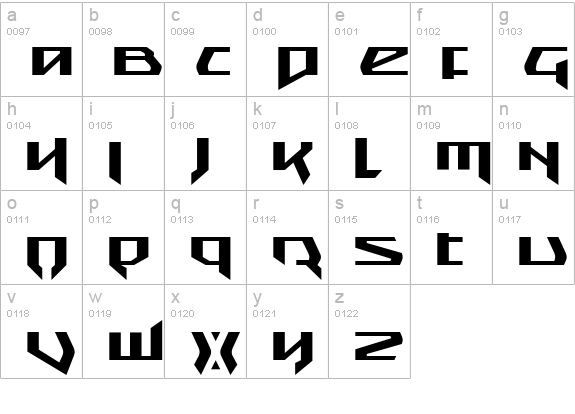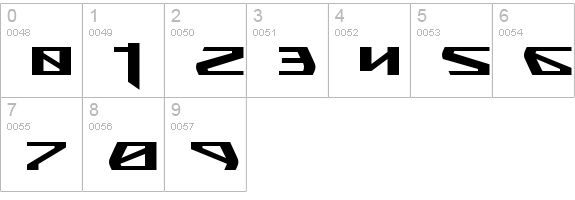
Snubfighter Expanded is a distinctive, extended-width variant in the Snubfighter typeface family \xE2\x80\x94 well suited to design and typography projects.
Snubfighter Expanded Font is a sleek and modern typeface that exudes confidence and sophistication. Its sharp angles and precise lines give your designs a futuristic edge, making it perfect for projects that require a bold and striking look. This versatile font is ideal for headlines, posters, branding, and more. What's even better is that Snubfighter Expanded Font is available for free download at FontsMarket.com. This means you can elevate your designs without breaking the bank. Don't miss out on the opportunity to add this stunning font to your collection and take your projects to the next level. Download Snubfighter Expanded Font today and unleash your creativity!